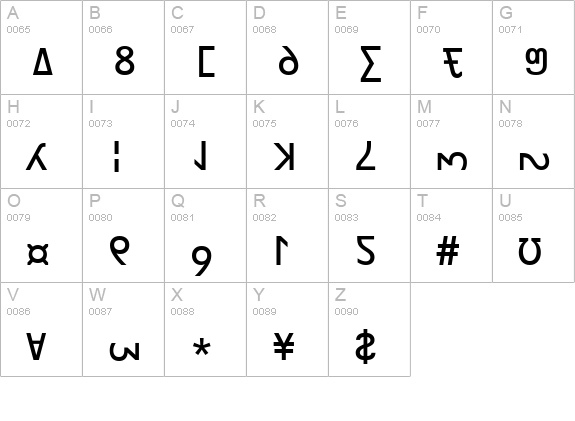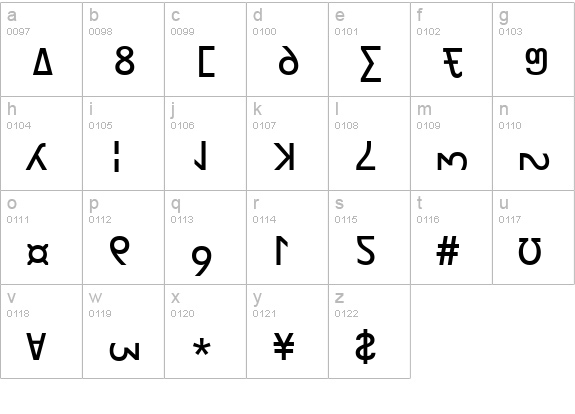
The y2k font is a nostalgic and futuristic typeface that captures the essence of the turn of the millennium. With its bold, blocky design and retro-futuristic flair, this font is perfect for adding a touch of early 2000s style to your designs. Whether you're creating posters, logos, or social media graphics, y2k font will make your text pop and stand out. The best part? This unique font is available for free download at FontsMarket.com, so you can easily add it to your font collection without any cost. Don't miss out on the opportunity to enhance your designs with the y2k font's distinctive look and feel. Download it today and start creating eye-catching visuals that are sure to make a statement.